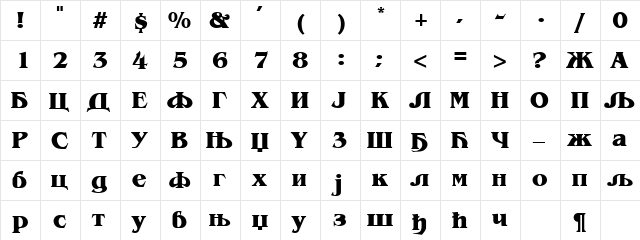
Bangkok Cirilica Bold
Design Context for Bangkok Cirilica Typeface
Bangkok Cirilica is a composed and adaptable typeface that performs quietly and consistently across a wide range of design contexts. The heavy weight commands attention and anchors typographic hierarchies.